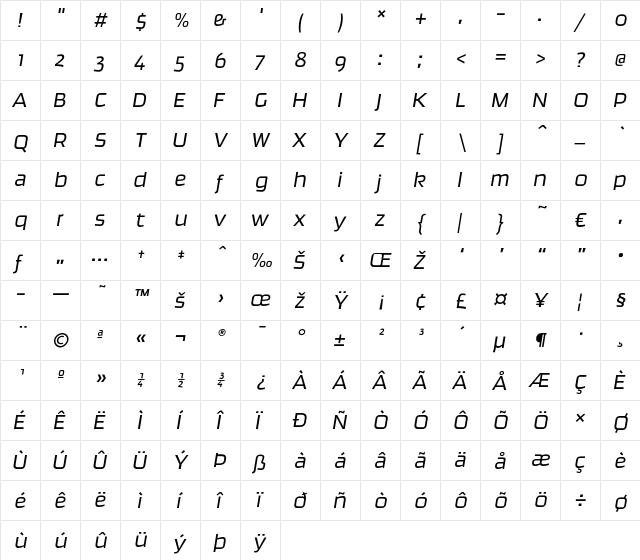
Ginger-LightItalic Regular Font Preview
Design Context for Ginger-LightItalic Typeface
Ginger-LightItalic offers clean, dependable letterforms without strong stylistic allegiance, making it a practical choice for designers who need flexibility. Its italic angle brings a sense of urgency and motion to the letterforms. The delicate stroke weight brings airiness and refinement to layouts.
Pro Tip: Try Ginger-LightItalic for annotation and caption copy alongside an upright companion — the contrast in angle creates a dynamic but ordered typographic system.